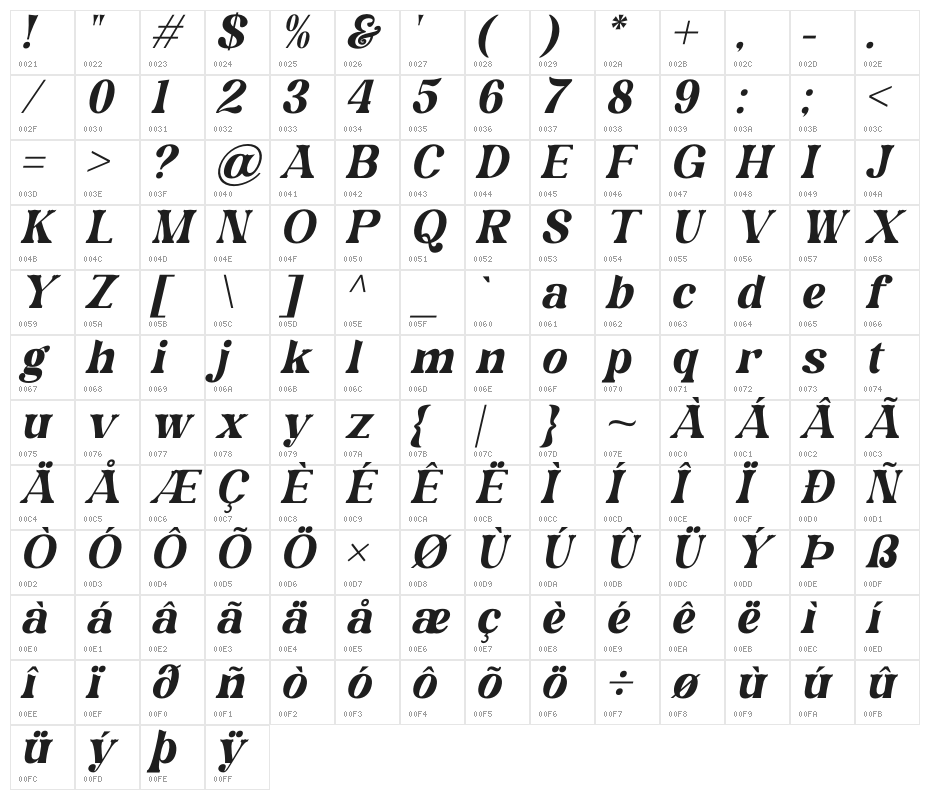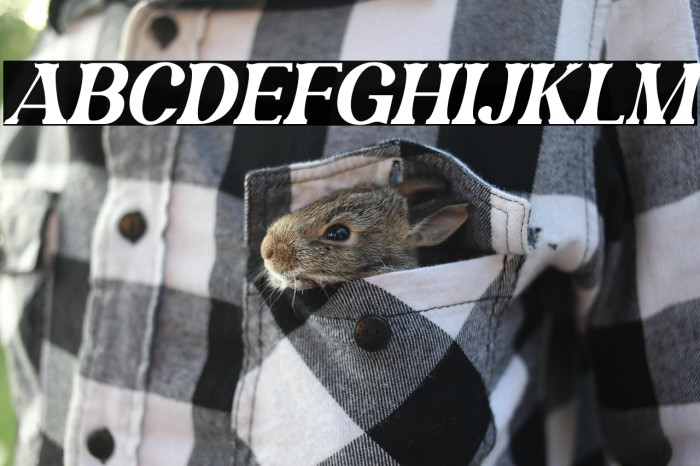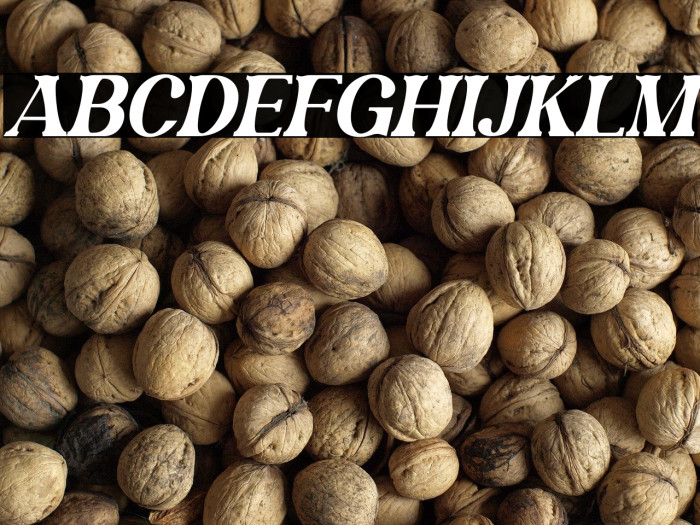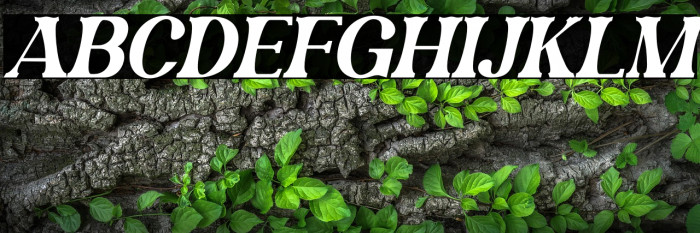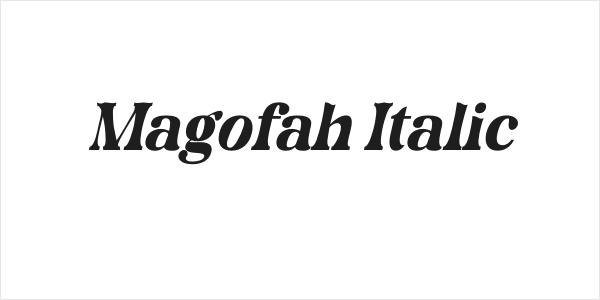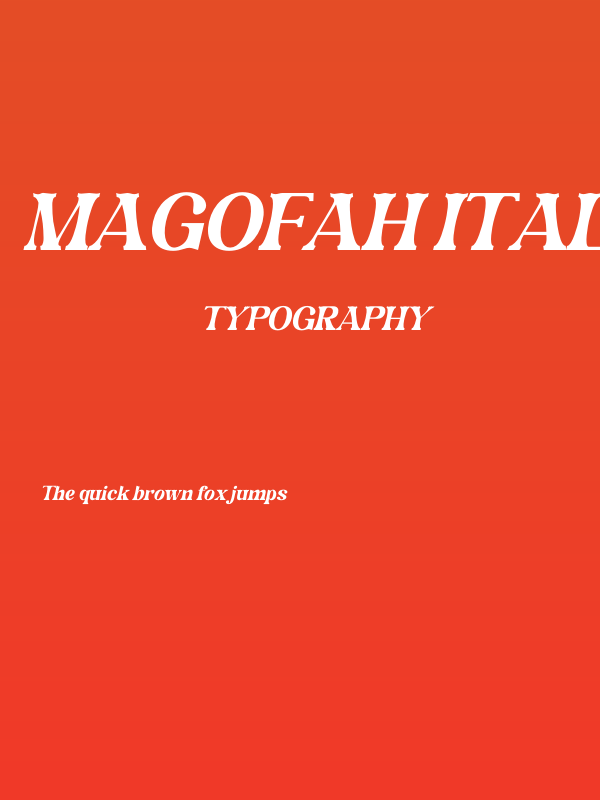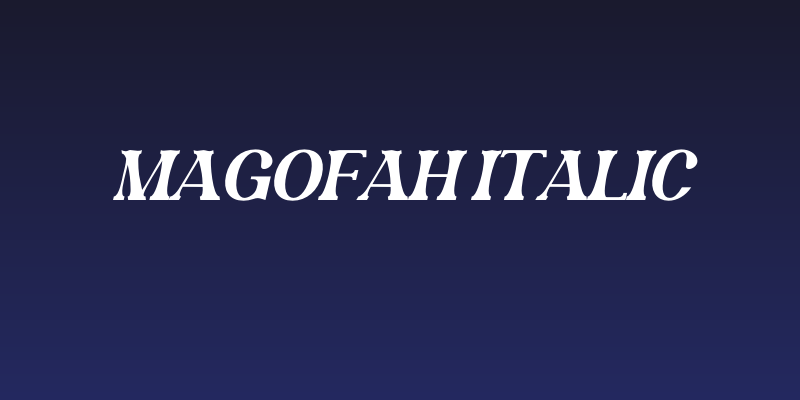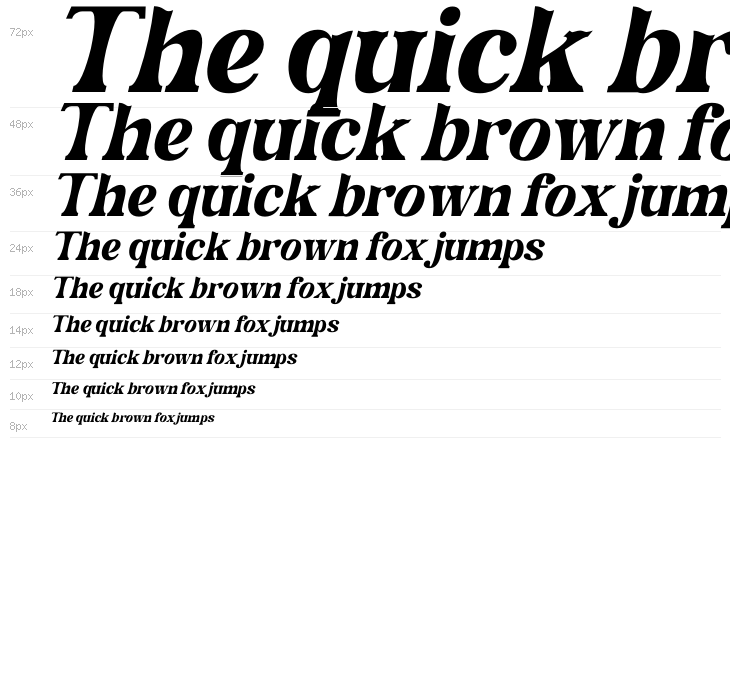
Magofah Italic Font
Magofah Italic Description
This font features a dynamic and elegant italic style, characterized by its fluid and slightly slanted letterforms. The strokes are bold and expressive, with a high contrast between thick and thin lines, giving it a dramatic and sophisticated appearance. The uppercase letters are tall and commanding, while the lowercase letters maintain a consistent flow, enhancing readability. The numerals are robust and align well with the overall aesthetic, making them suitable for impactful displays. Special characters are crafted with the same attention to detail, ensuring versatility across various design needs.
| Overall Style | Elegant, Dramatic |
| Use Case | Headlines, Logos, Editorial Design |
| Proposed Projects | Ideal for branding, editorial design, fashion magazines, and luxury product packaging. |